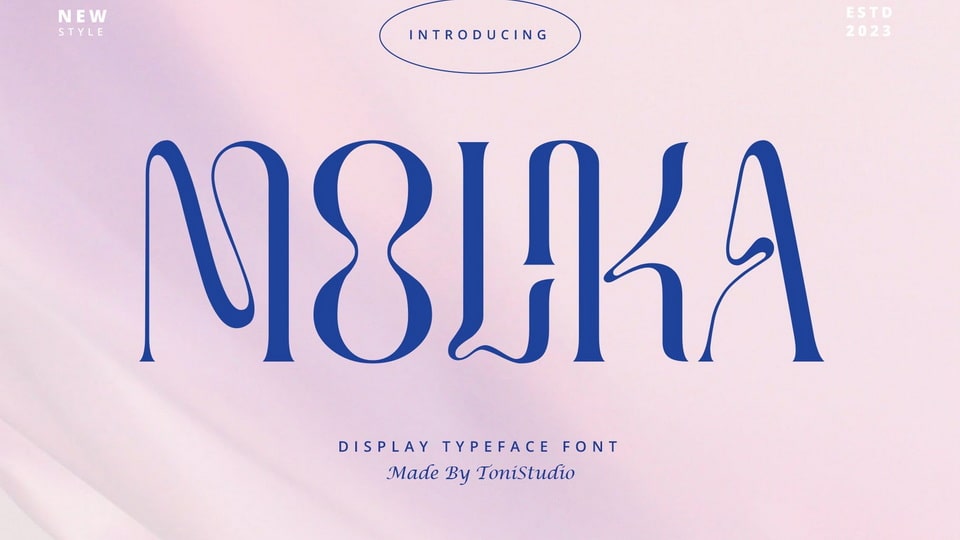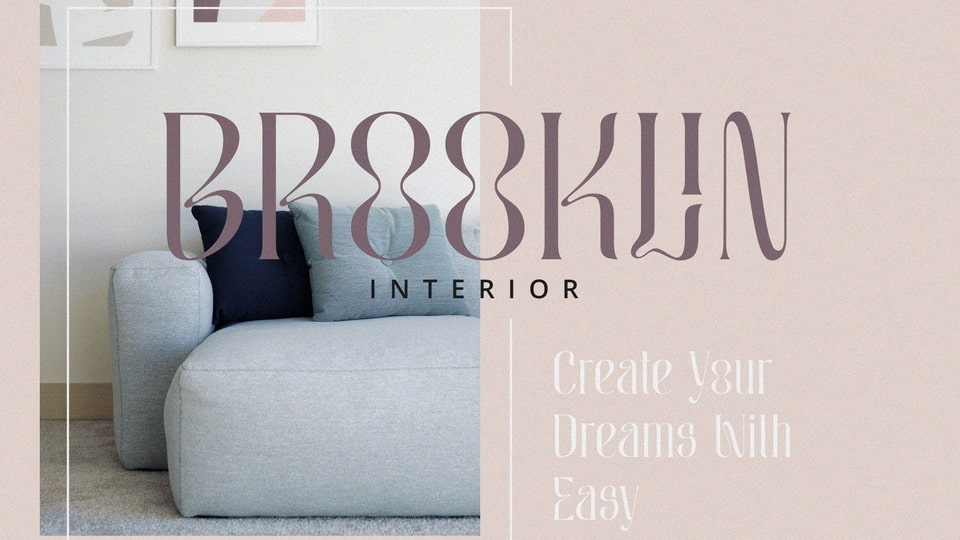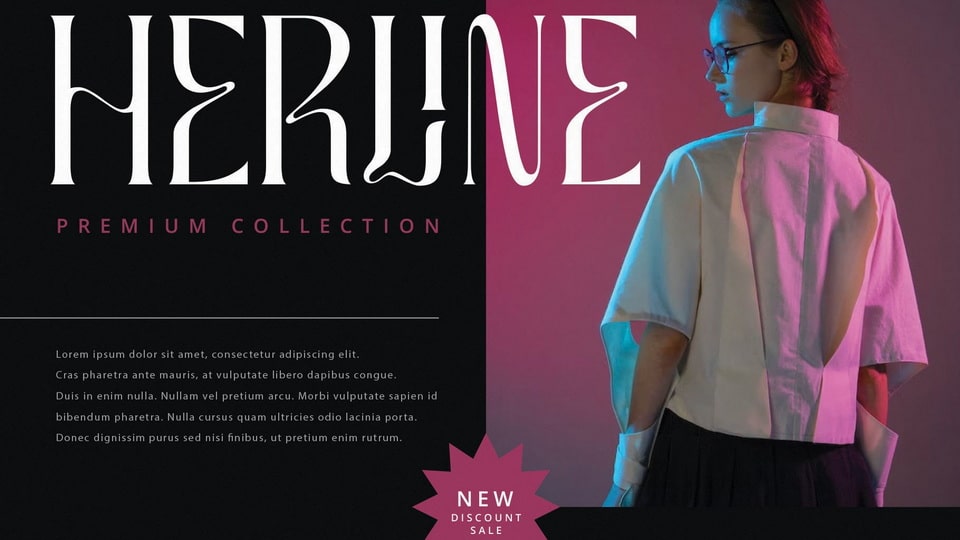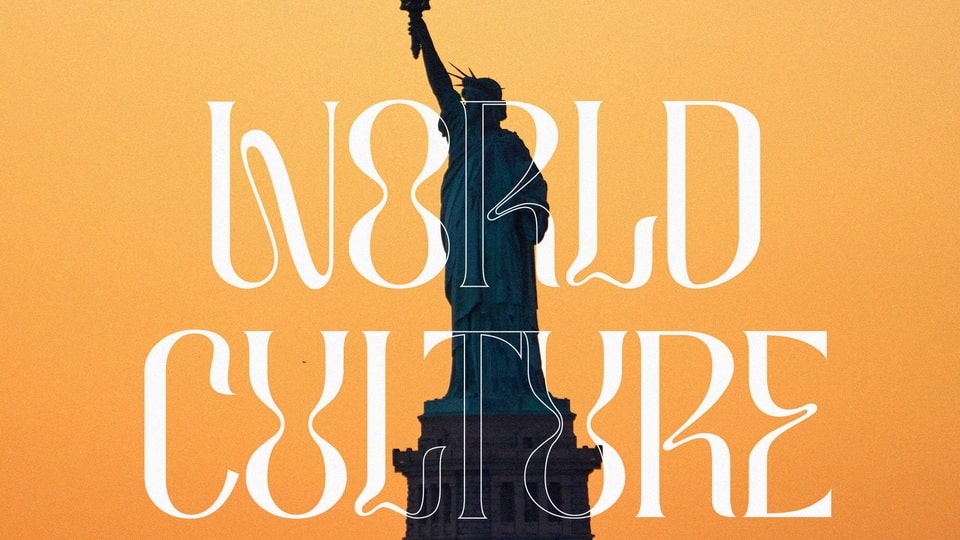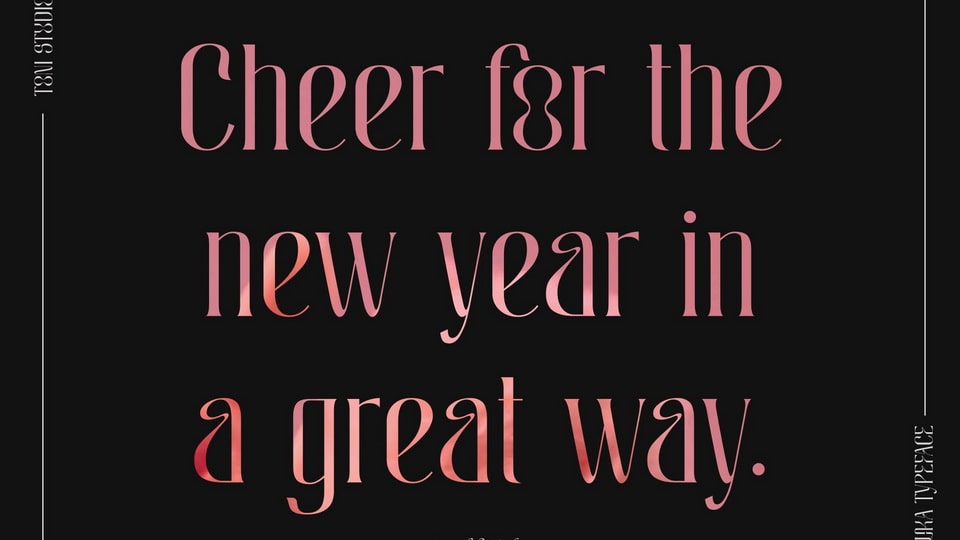
Molika is a unique experimental serif typeface with distinctive characters. With a mix of vintage and modern accents, it looks perfect when paired with a conventional serif/sans serif.
Molika is perfect for bringing a unique visual look to any design, from modern logos to Instagram quotes, portfolio websites, editorial layouts, personal branding, wedding stationery, product packaging, and more